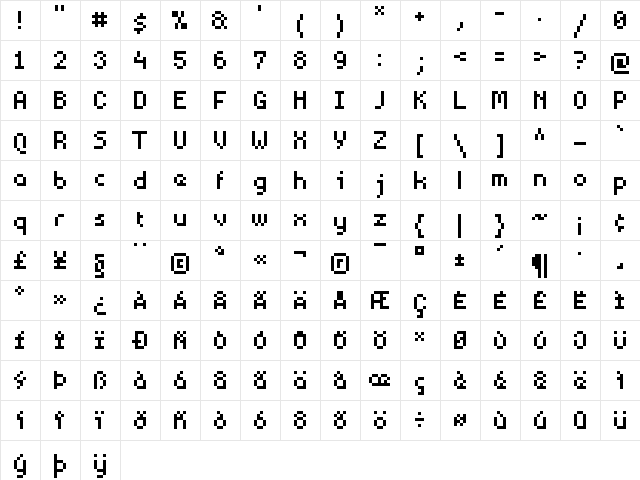
Mouse Regular Font Preview
Mouse Regular
Mouse Regular Font Details
| Foundry | Marcus Sterz / FaceType |
Design Context for Mouse Typeface
Mouse offers clean, dependable letterforms without strong stylistic allegiance, making it a practical choice for designers who need flexibility.
Pro Tip: Pair Mouse with a font of contrasting weight or personality to build a more expressive typographic hierarchy.